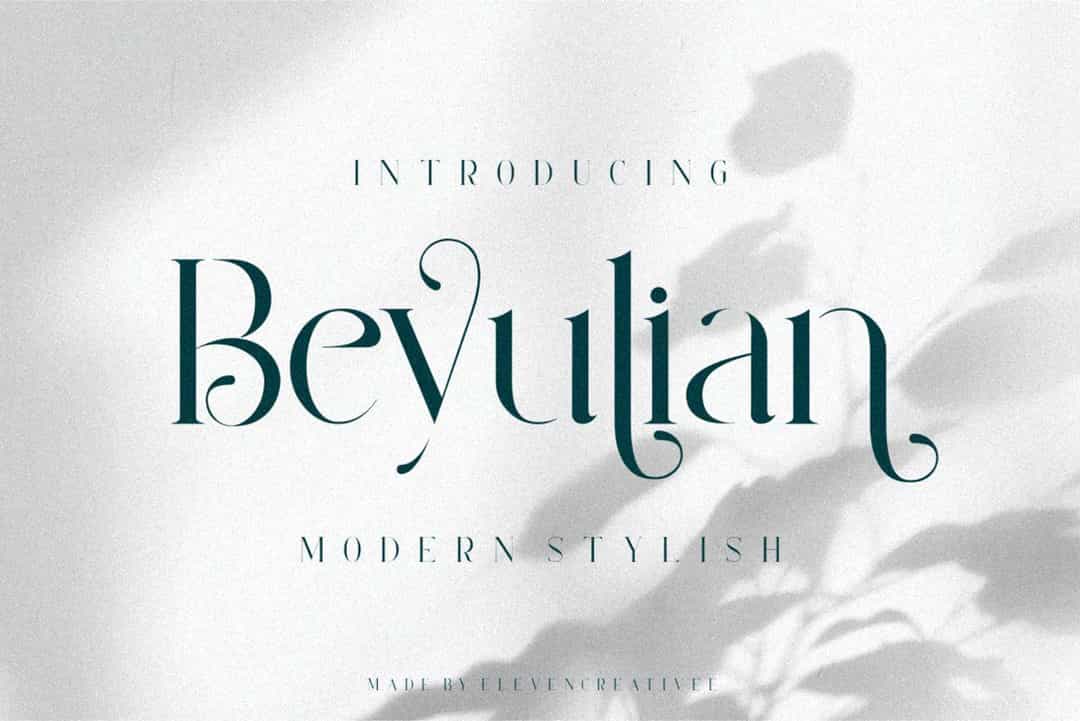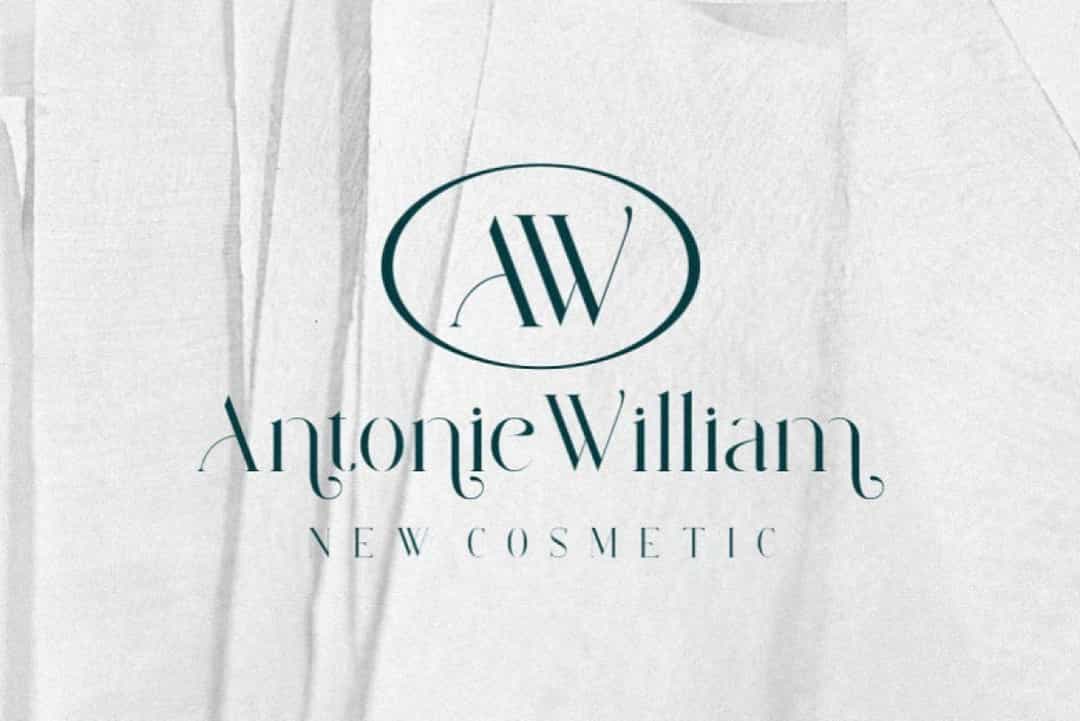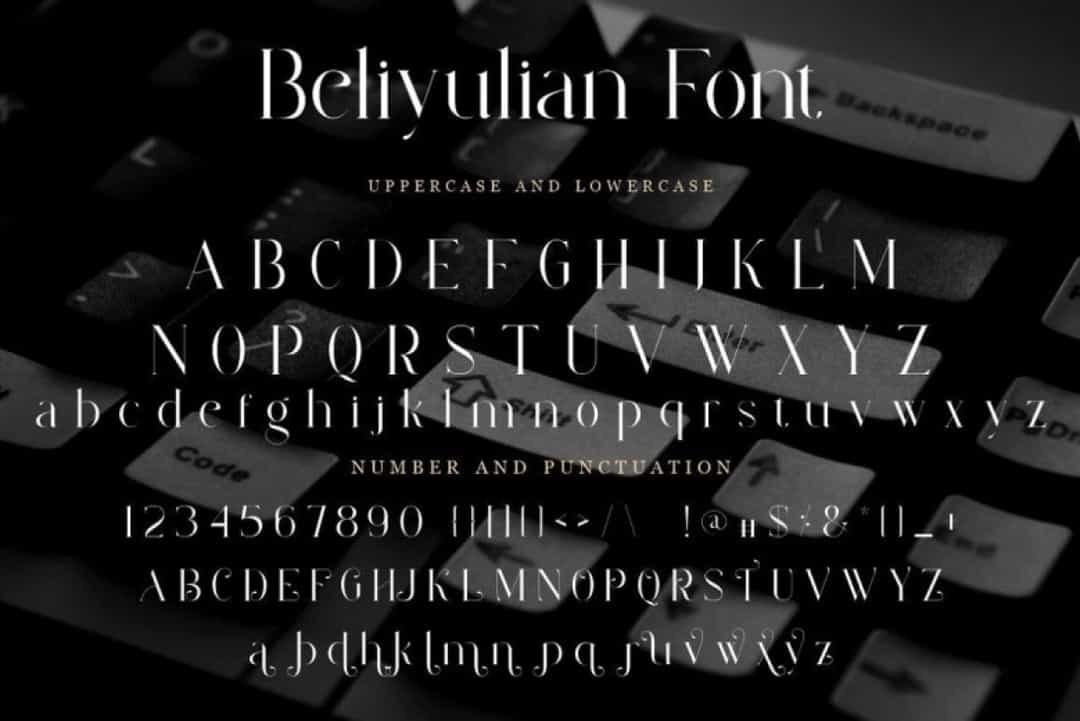
Discover Beyulian Font, part of the Serif collection—a versatile and unique font perfect for adding a personal touch to your projects. Download it for free and enjoy crafting designs with style, from invitations to social media posts. This font is available exclusively for personal use, giving you the freedom to create without limits. Unlock your creativity with Beyulian Font today!
Beyulian Serif Font is a great way to brand yourself! Although originally intended as a personal logo, its versatility makes it suitable for many other purposes as well. Personal branding encompasses every element of personal identity from names and logos to packaging for products, merchandise and social media – as well as greeting cards and social media. Advertising photography or signature fonts could benefit from using our bold font selection.